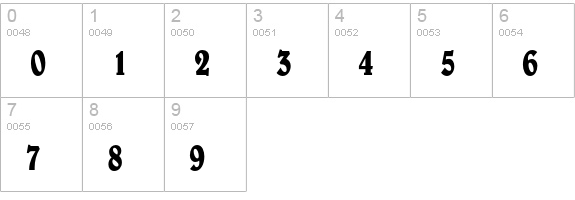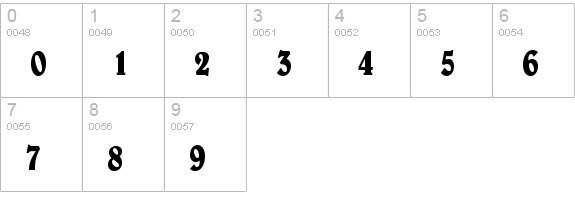
Belwe Condensed is a distinctive, condensed-width variant in the Belwe typeface family \xE2\x80\x94 well suited to design and typography projects.
Belwe Condensed is a classic and elegant font that exudes sophistication and style. With its tall and slender letterforms, this typeface is perfect for creating eye-catching headlines and titles that demand attention. Its condensed design allows for maximum impact in a limited space, making it ideal for a wide range of design projects. The sharp serifs and clean lines of Belwe Condensed give it a timeless quality that is both modern and traditional. Whether used in print or digital media, this font adds a touch of refinement and polish to any project. Best of all, Belwe Condensed is available for free download at FontsMarket.com. Now you can easily access this stunning font and incorporate it into your designs without any cost. Don't miss out on the opportunity to enhance your work with the beauty and sophistication of Belwe Condensed. Download it today and elevate your design projects to new heights.